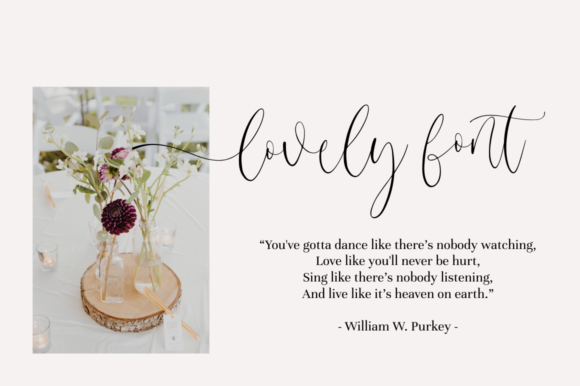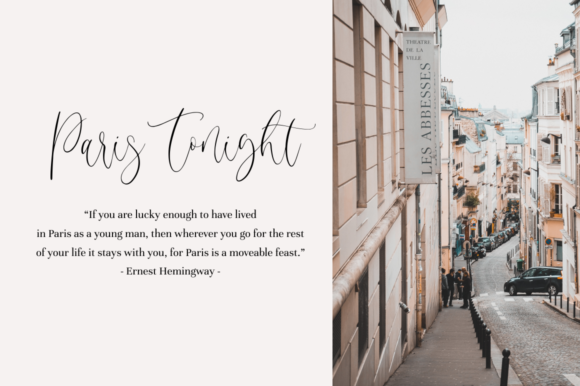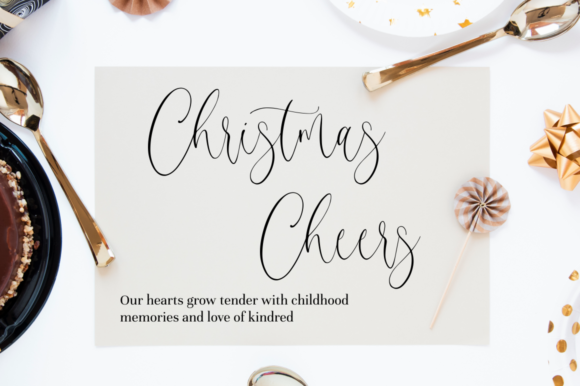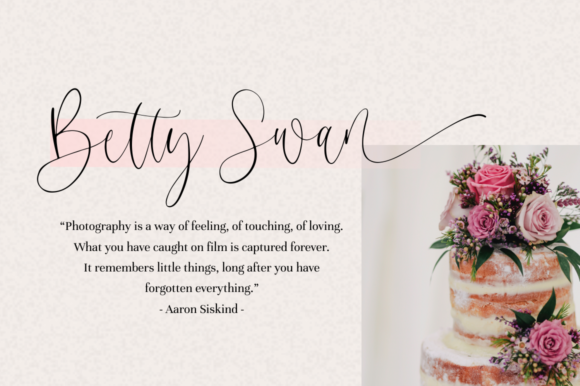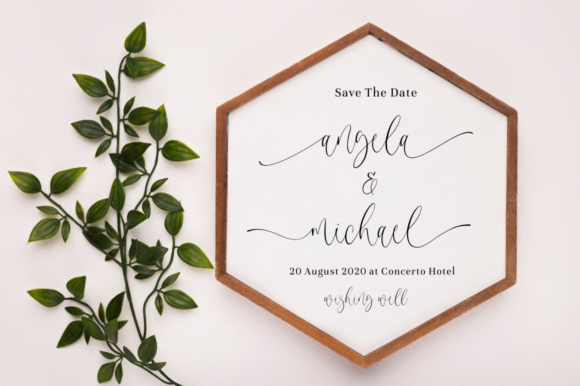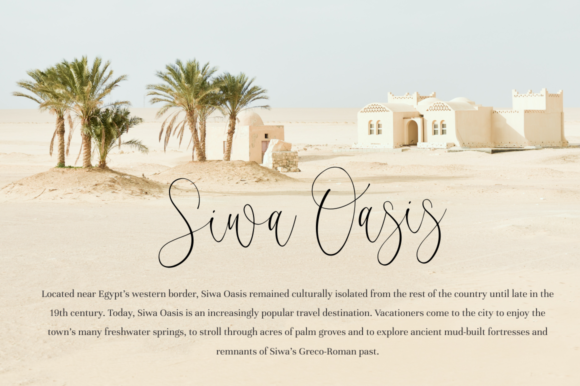
Introduction to Gilmour Font
As designers, we’ve all been there – staring at a blank canvas, searching for the perfect font to bring our creative project to life. It’s the moment when the design begins to take shape, and the right font can make all the difference. For those who crave a handwritten touch, the Gilmour Font is an exquisite choice that elevates any design to new heights.
With its elegant script style, Gilmour Font is a versatile design resource that can be used on a wide range of creative projects, from wedding invitations to logos and business cards. Its high-quality design makes it a valuable asset for designers, allowing them to create stunning visuals with ease.
Key Features of Gilmour Font
- High-quality typography: Gilmour Font is designed to provide a premium look for any creative project, making it an ideal design resource.
- Large character set: The font includes a wide range of characters, including uppercase and lowercase letters, numbers, and punctuation marks.
- High-resolution design: Gilmour Font is designed at a high resolution, ensuring crisp and clear typography even at large sizes.
- Perfect for creative projects: Gilmour Font is ideal for use in creative projects, such as graphic design, web design, and digital art.
Honest Review: Gilmour Font
I recently had the chance to dive into the world of Gilmour Font, and I’m excited to share my thoughts with you. As a designer, I’m always on the lookout for high-quality design resources that can elevate my creative projects.
One of the standout features of Gilmour Font is its versatility. It’s a free download, making it accessible to designers of all levels. The font’s clean and modern aesthetic makes it perfect for a wide range of creative projects, from logos to typography-heavy designs.
- High-quality design: Gilmour Font is meticulously crafted, with a focus on detail that’s evident in every aspect of the font.
- Easy to use: The font is incredibly easy to work with, even for designers who are new to typography.
- Limited customization options: While Gilmour Font is versatile, it may not offer the level of customization that some designers are looking for.
- Not suitable for all projects: The font’s modern aesthetic may not be the best fit for projects that require a more traditional or vintage feel.
Overall, I’m impressed with Gilmour Font. It’s a solid addition to any designer’s toolkit, and I’d definitely recommend it for creative projects that require a high-quality, modern font.
To get the most out of the Gilmour Font, use it for headings and titles to add visual interest to your design. Common use cases include logo designs, business cards, and social media graphics.